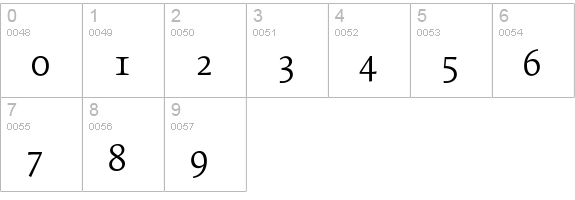
Proforma-Book is a comfortable, highly readable variant in the Proforma typeface family \xE2\x80\x94 well suited to long-form body text, articles, and editorial content.
Introducing Proforma-Book font, a versatile and modern typeface designed to elevate your design projects to new heights. With its clean lines and balanced proportions, Proforma-Book exudes elegance and sophistication, making it the perfect choice for a wide range of design applications. This font is available for free download at FontsMarket.com, allowing you to access this premium font without any cost. Whether you're working on branding, editorial design, web design, or any other creative project, Proforma-Book offers the flexibility and style you need to make your designs stand out. The sleek and professional look of Proforma-Book will bring a touch of class to any project, while its readability ensures that your message is always clear and impactful. Don't miss out on the opportunity to enhance your designs with this stunning font - download Proforma-Book today and take your creative work to the next level.